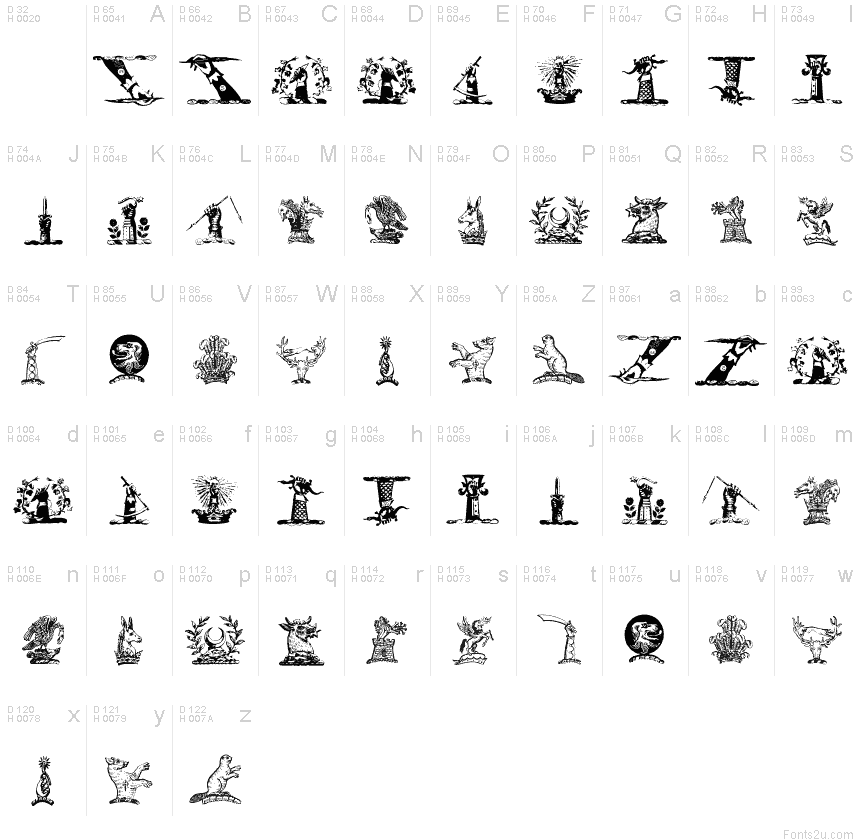
HelmbuschCrestSymbols
Helmbusch CrestSymbols font by M. Klein is a free decorative dingbat typeface. Each glyph feels like it’s been scratched from an ancient shield-armored fists clutching spears, snarling beasts, and ornate crests perched on piles of stones. The black‑ink silhouettes are dense and gritty, with just enough cartoon exaggeration to keep things playful rather than grim.
Using Helmbusch CrestSymbols, you can drop ready-made heraldic icons into fantasy book covers, RPG rulebooks, tabletop campaign maps, festival posters, band merch, or themed event invitations. This free font shines when you scale the symbols large as emblems, then pair them with a clean serif or gothic-style title set smaller around them.